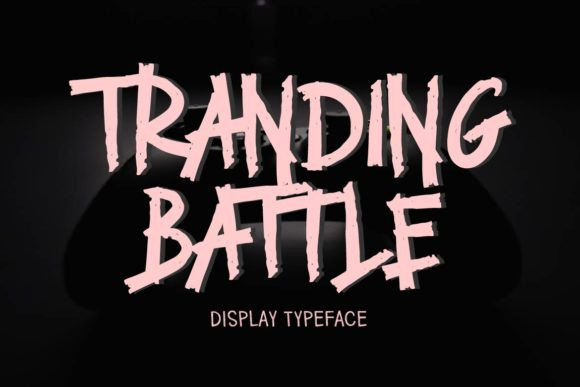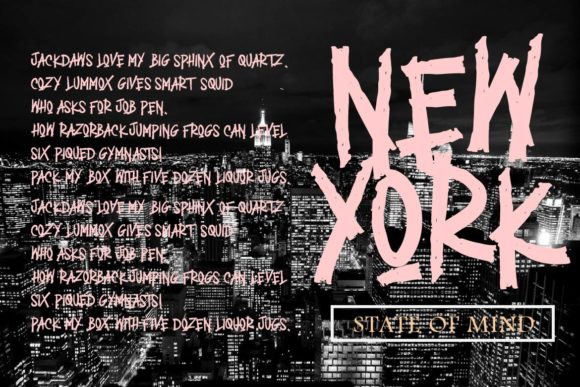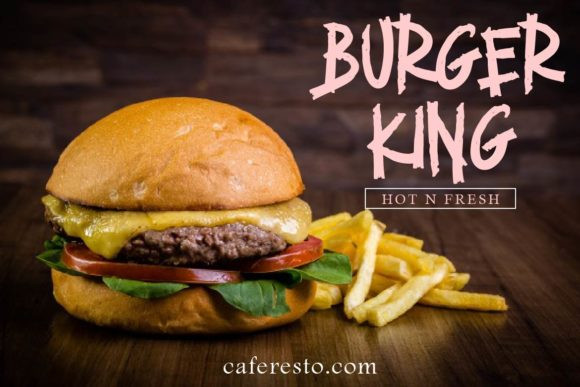
Tranding Battle Font
Tranding Battle is a bold and chunky lettered display font. Add this font to your creative ideas and notice how it will make them stand out!